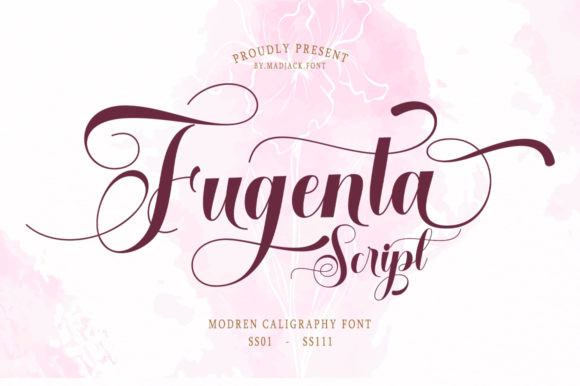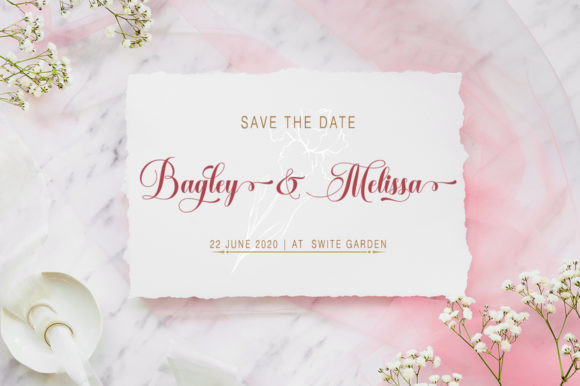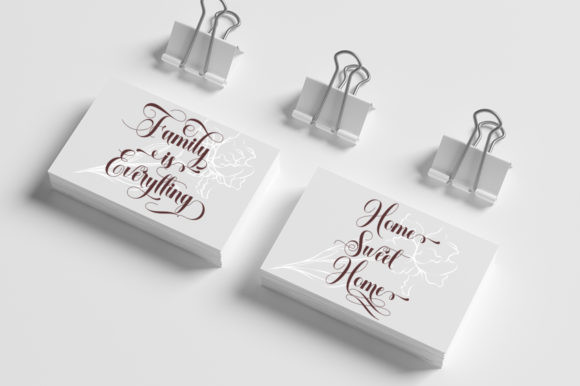
Fugenta Font
Fugenta FontFugenta is a magical handwritten font carefully created with a touch of elegance. This is a beautiful combination of timeless elegance and authentic calligraphy. It will elevate a wide range of design projects to the highest level, be it branding, headings, wedding designs, invitations, signatures, logos, labels, and much more!